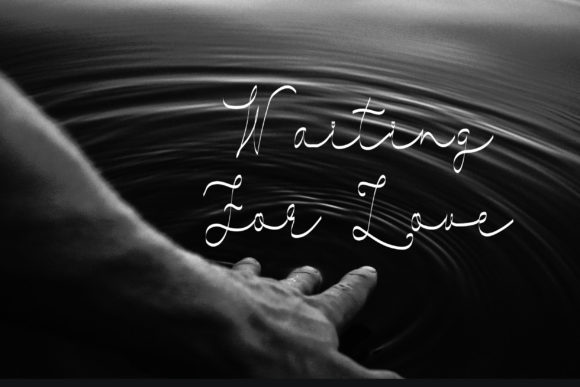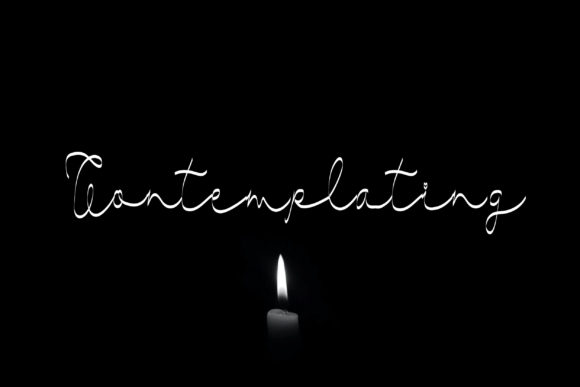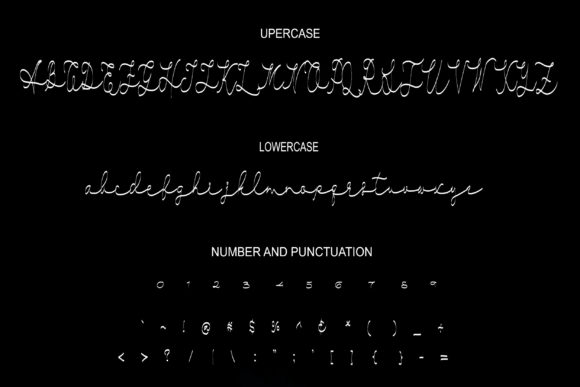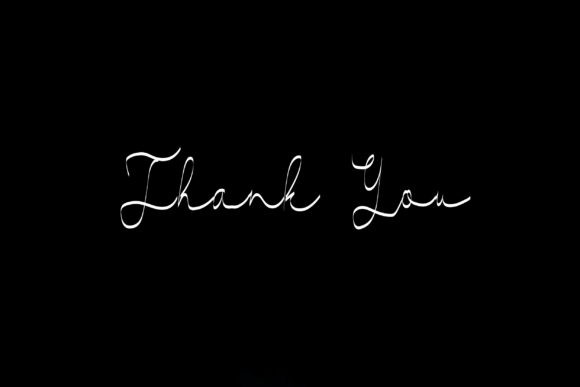
Introducing Andiana Font: Elevate Your Designs with Elegance and Class
Are you tired of using the same old fonts in your designs? Look no further than Andiana Font, a lovely and delicate script font that exudes elegance and class. Crafted with precision and attention to detail, Andiana is the perfect addition to any design project that requires a touch of sophistication and refinement.
The Story Behind Andiana Font
Andiana Font was particularly crafted for those who need a beautiful and refreshing look to their designs. The creators of Andiana understand the importance of typography in design and have carefully crafted each letterform to be both aesthetically pleasing and highly legible. Whether you’re a designer, craftsperson, or simply someone who appreciates beautiful typography, Andiana Font is sure to impress.
Key Features of Andiana Font
• Elegant and Delicate: Andiana Font features a delicate and elegant design that is perfect for a variety of design applications, from wedding invitations to branding and packaging.
• Highly Legible: Despite its elegant design, Andiana Font is highly legible, making it perfect for use in body text as well as headlines and titles.
• Versatile: Andiana Font is a versatile font that can be used in a wide range of design applications, from digital designs to print materials.
• Beautifully Crafted: Each letterform in Andiana Font has been carefully crafted to ensure that it is both aesthetically pleasing and highly legible.
Uses of Andiana Font
Andiana Font is a versatile font that can be used in a wide range of design applications, including:
• Wedding Invitations: Andiana Font is perfect for wedding invitations, with its elegant and delicate design making it ideal for formal wedding stationery.
• Branding and Packaging: Andiana Font can be used to add a touch of elegance and sophistication to branding and packaging designs.
• Digital Designs: Andiana Font can be used in digital designs, such as website headers, social media graphics, and more.
• Print Materials: Andiana Font can be used in a variety of print materials, including brochures, flyers, and posters.
Why Choose Andiana Font?
There are many reasons why designers and crafters choose Andiana Font for their design projects. Here are just a few:
• Unique and Elegant Design: Andiana Font features a unique and elegant design that sets it apart from other fonts.
• High-Quality Typography: Andiana Font is a high-quality font that is designed to deliver exceptional results in any design application.
In conclusion, Andiana Font is a lovely and delicate script font that exudes elegance and class. With its elegant design, high legibility, and versatility, Andiana Font is the perfect addition to any design project. Whether you’re a designer, craftsperson, or simply someone who appreciates beautiful typography, Andiana Font is sure to impress. So why wait? Download Andiana Font today and elevate your designs with elegance and class.